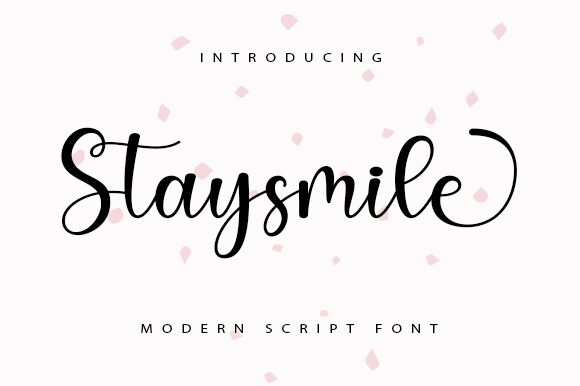
Stay Smile
Stay Smile is a modern calligraphy font designed by Wahyu Setiyawan. Its light and condensed style make it an ideal choice for projects that require an elegant, yet playful touch. From invitations to posters, this font will bring life and personality to any design. Its versatility also makes it suitable for branding and logo designs, as well as t-shirt prints and magazine titles.